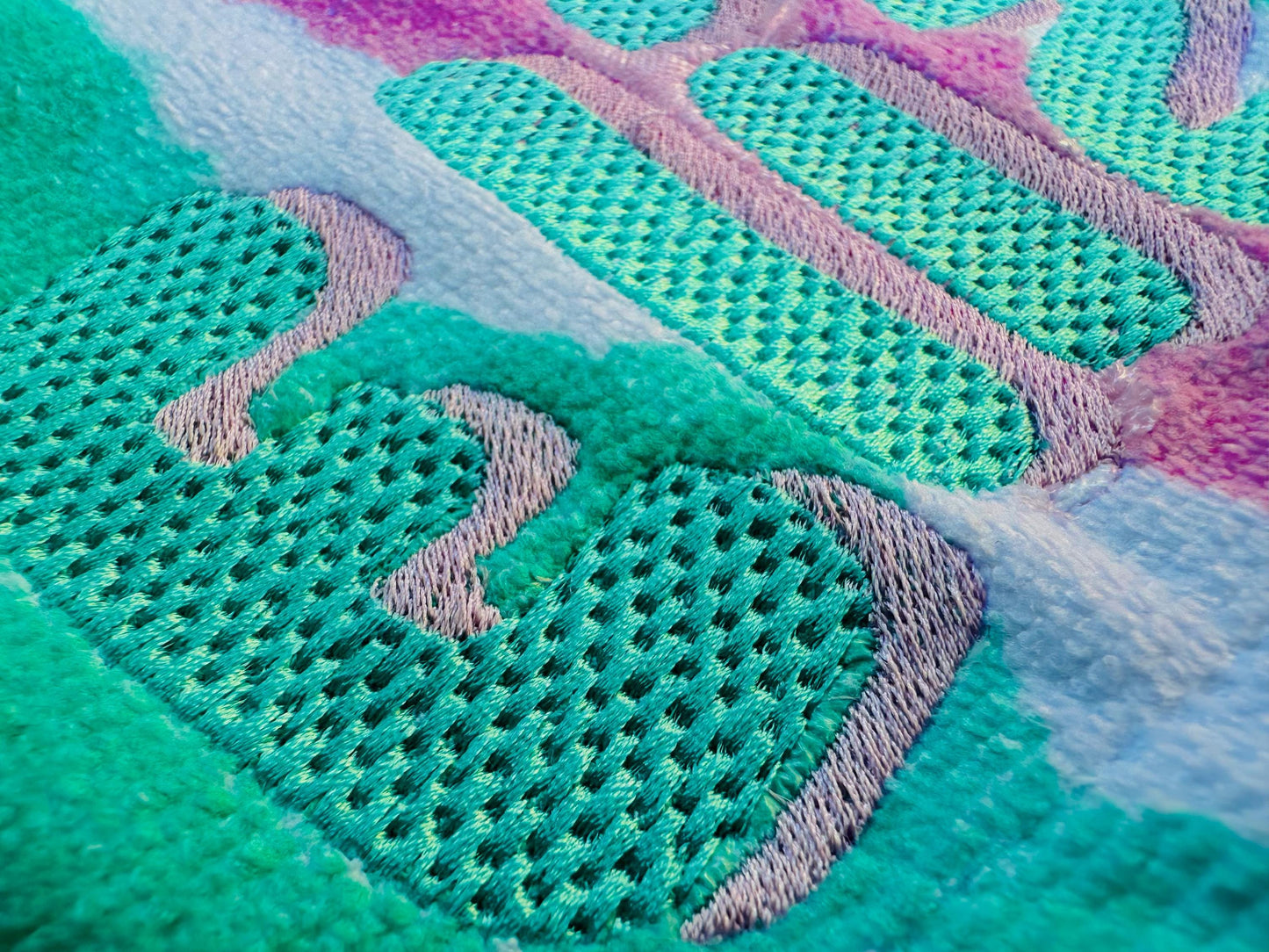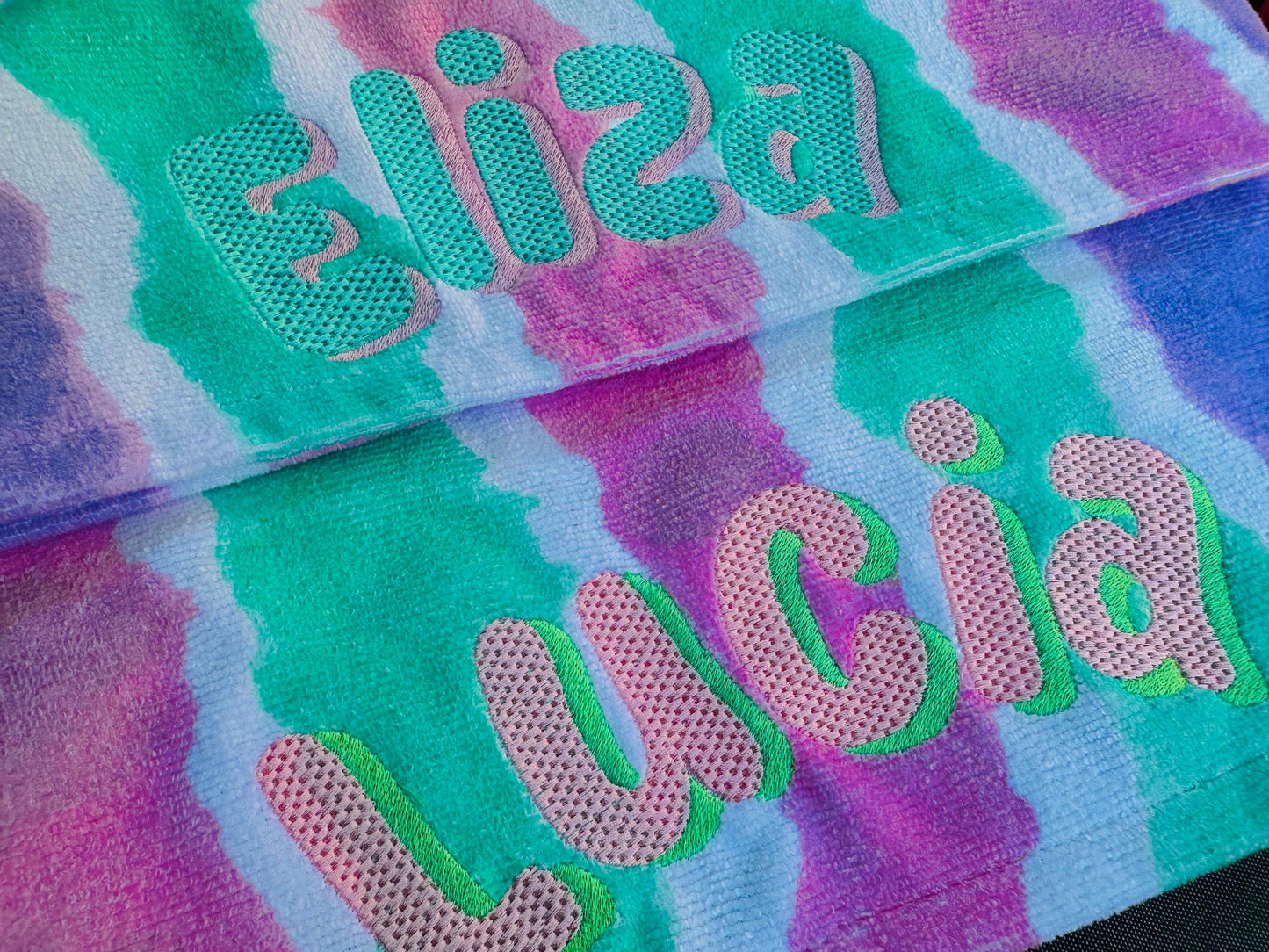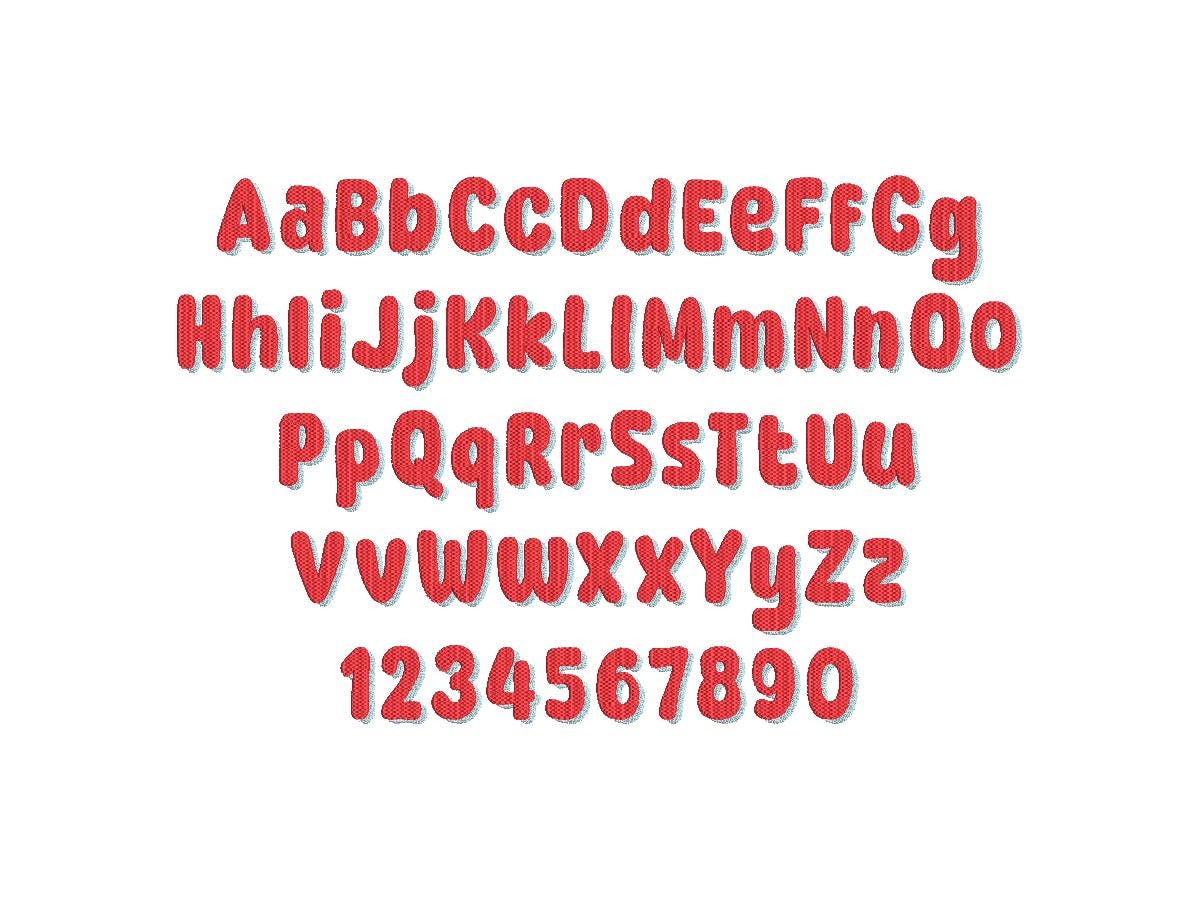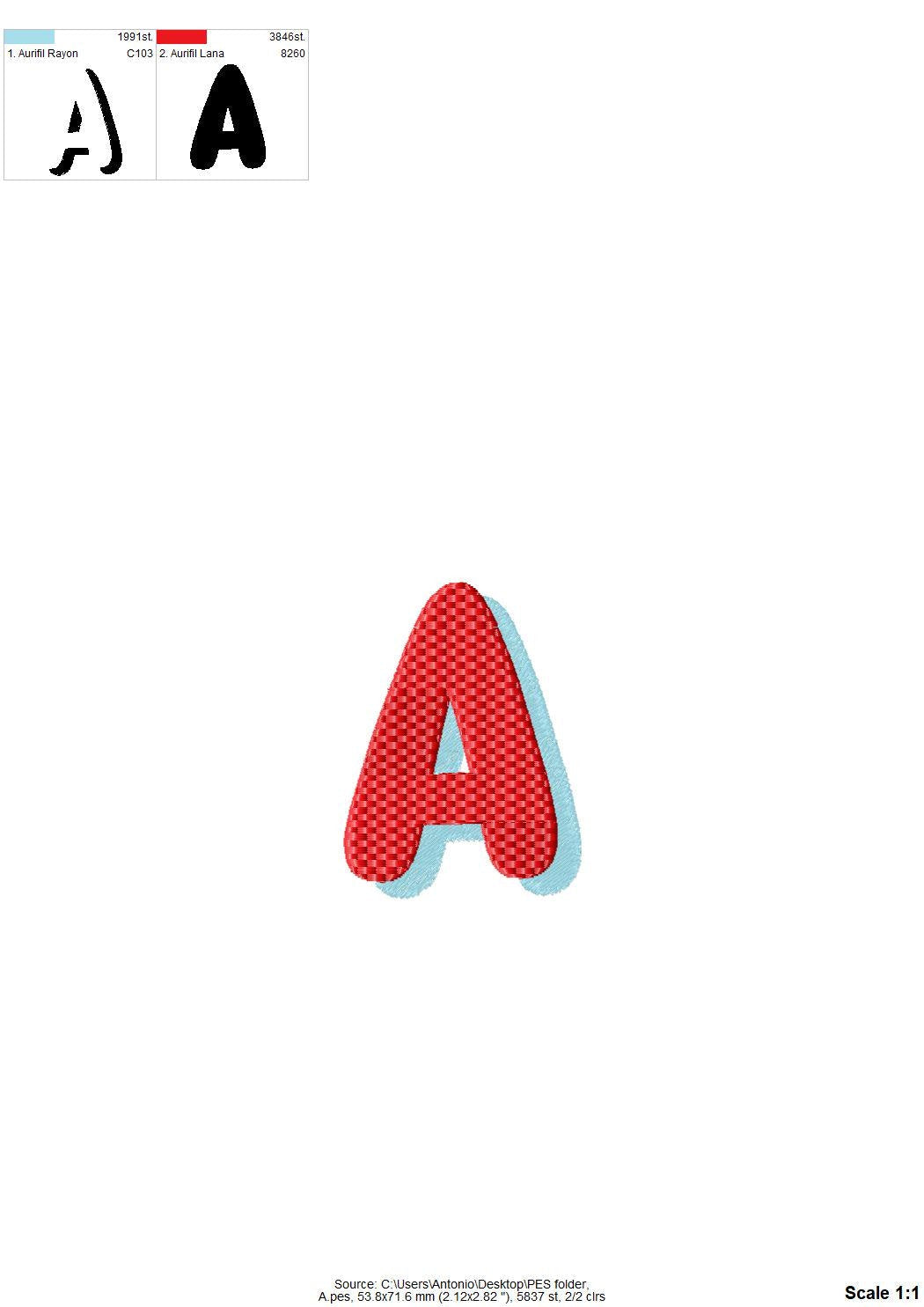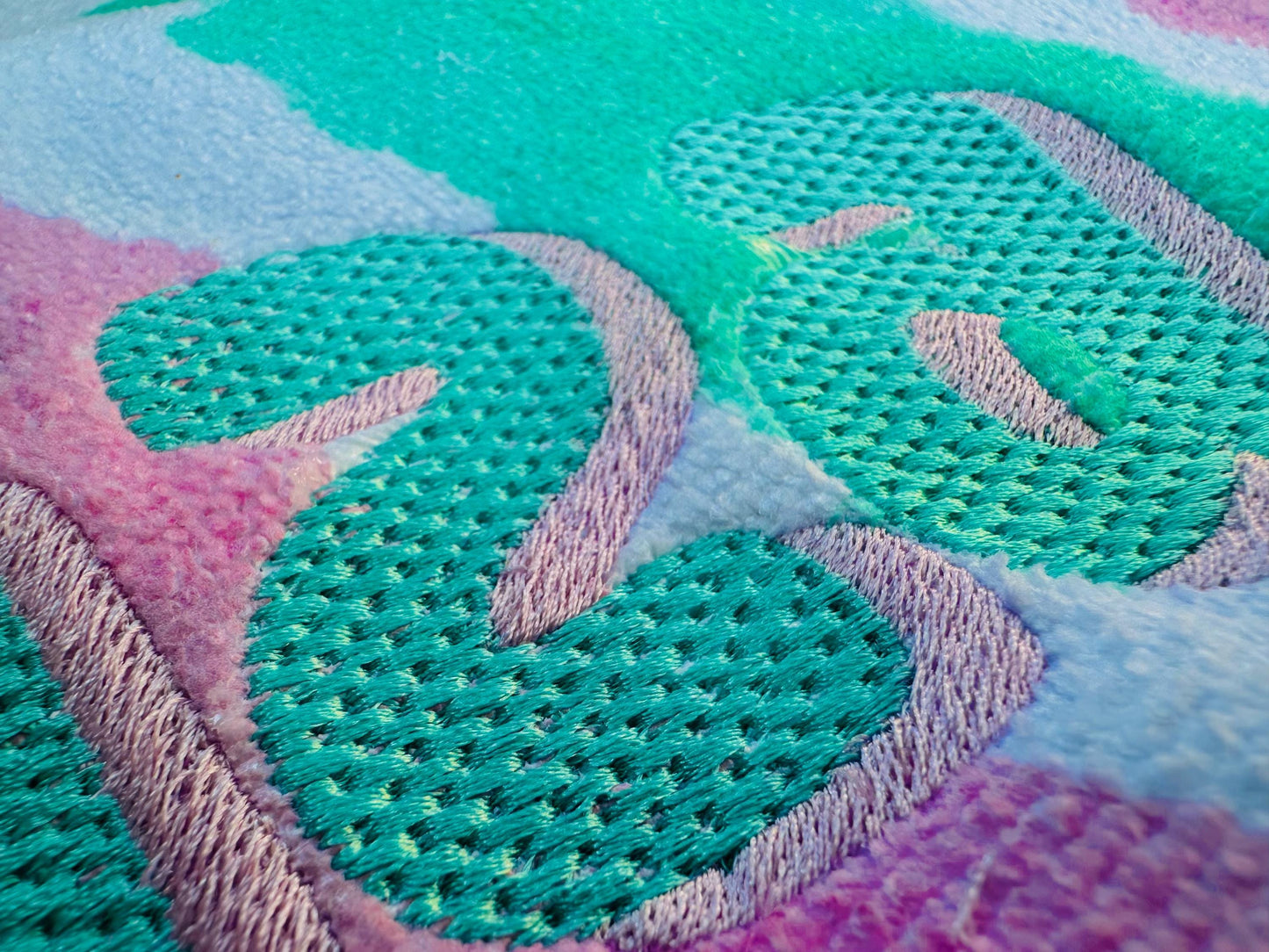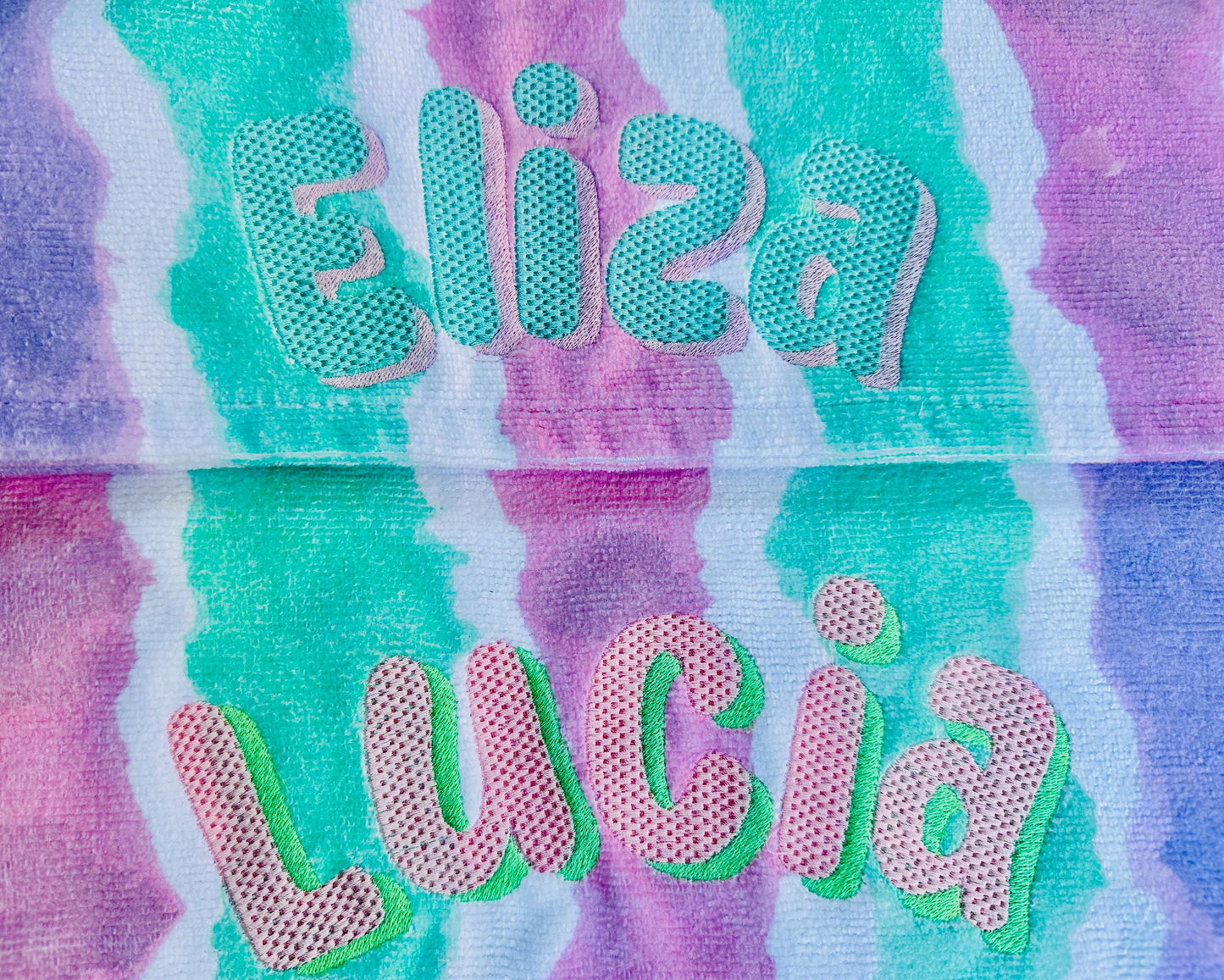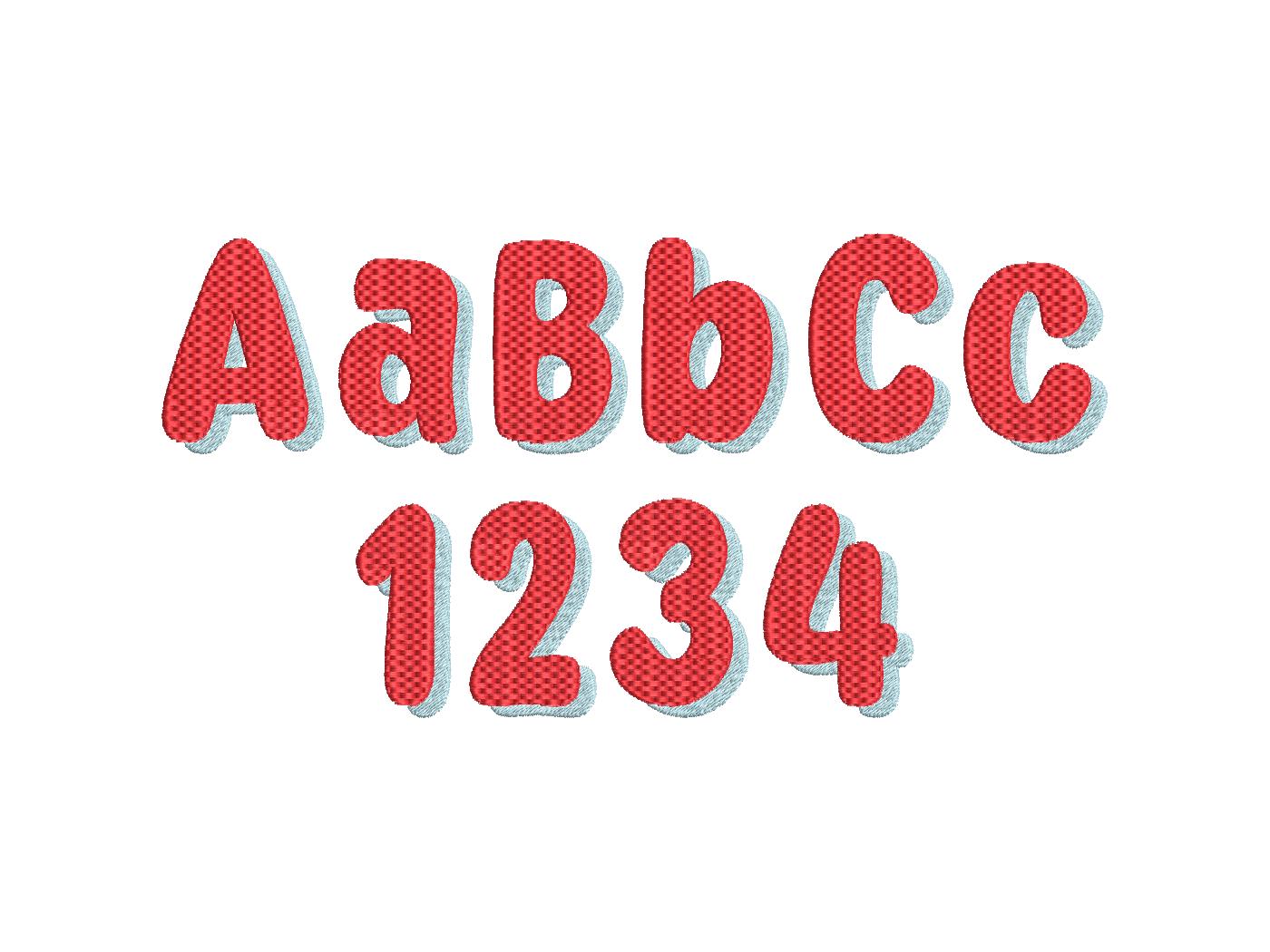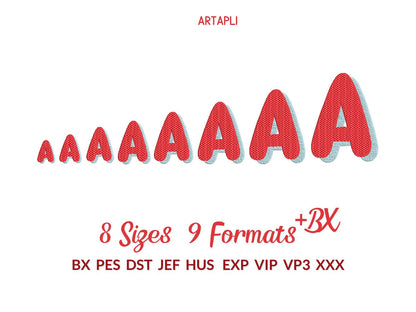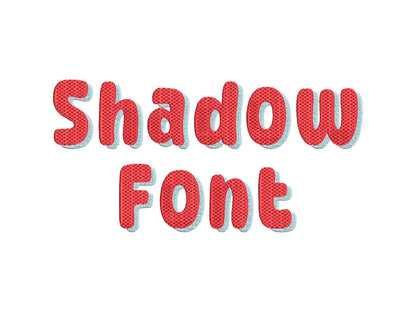
Or click to open the linkA two-color font with a waffle stitch and a fill stitch shadow, for names and monograms on shirts, bags and pillows.
Uppercase and lowercase letters and numbers in eight sizes: 1.3, 1.6, 2, 2.3, 2.8, 3.3, 4 and 4.8 inches.